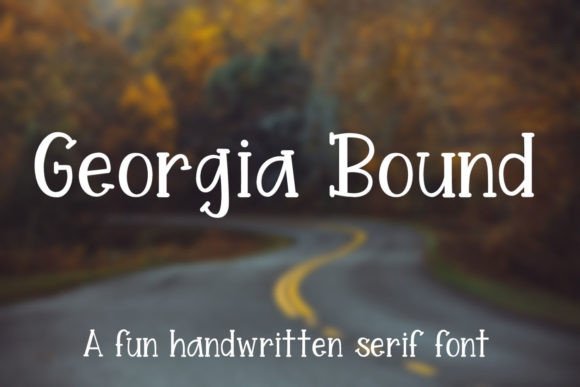
Georgia Bound Font: A Journey of Creativity and Adventure
In the world of typography, fonts are not just a means of communication, but also an expression of creativity and individuality. One such font that embodies these qualities is the Georgia Bound Font. Created during a road trip from South Florida to and from Georgia, this font is a testament to the power of adventure and inspiration. In this article, we’ll explore the story behind Georgia Bound, its unique characteristics, and why it’s an excellent choice for a wide range of original designs.
The Birth of Georgia Bound
Georgia Bound was born out of a spontaneous road trip from South Florida to Georgia and back. The creator, fueled by the thrill of the open road and the scenic views, embarked on a journey that would eventually lead to the creation of this unique font. The trip was not just about reaching a destination but about experiencing the journey itself – the people, places, and moments that make a trip memorable.
During the trip, the creator was inspired by the diverse landscapes, cultures, and atmospheres that they encountered. From the sun-kissed beaches of Florida to the rolling hills and historic towns of Georgia, each stop along the way influenced the font’s development. The result was a font that captures the essence of adventure, independence, and creativity.
Adventurous and Indie Nature
Georgia Bound Font is characterized by its adventurous and indie nature. It has a distinct personality that sets it apart from more traditional fonts. The font’s design elements reflect the freedom and spontaneity of the road trip that inspired it. With its unique letterforms, subtle imperfections, and hand-crafted feel, Georgia Bound adds a touch of personality to any design.
The font’s adventurous spirit makes it perfect for designs that require a bold and daring approach. Whether you’re working on a travel brochure, an indie film poster, or a brand identity project, Georgia Bound is sure to make a statement. Its indie nature also makes it an excellent choice for creative projects that require a unique and nonconformist approach.
A Wide Range of Original Designs
Georgia Bound Font is a versatile font that can be used in a wide range of original designs. Its unique characteristics make it suitable for various applications, including:
• Travel and tourism marketing materials
• Indie film and music posters
• Brand identity and packaging design
• Magazines and editorial design
• Web design and digital marketing
The font’s legibility and readability make it an excellent choice for body text, while its bold and eye-catching design elements make it perfect for headlines and titles. Whether you’re working on a digital project or a print design, Georgia Bound is a great choice for adding a touch of personality and creativity.
Tips for Using Georgia Bound Font
To get the most out of Georgia Bound Font, here are some typography tips to keep in mind:
• Use Georgia Bound as a headline font to add a bold and eye-catching touch to your design.
• Pair Georgia Bound with a clean and simple font for body text to create a striking contrast.
• Experiment with different font sizes and colors to create visual hierarchy and emphasis.
• Use Georgia Bound’s unique design elements, such as its subtle imperfections and hand-crafted feel, to add character to your design.
In conclusion, Georgia Bound Font is a unique and creative font that embodies the spirit of adventure and independence. Its bold and eye-catching design elements make it perfect for a wide range of original designs, from travel marketing materials to indie film posters. With its legibility, readability, and hand-crafted feel, Georgia Bound is an excellent choice for designers looking to add a touch of personality to their work.